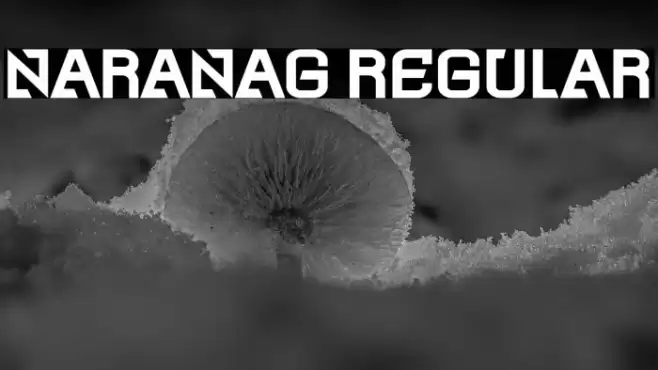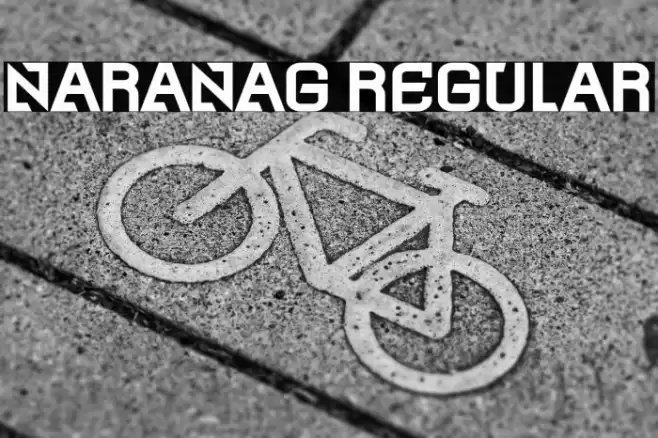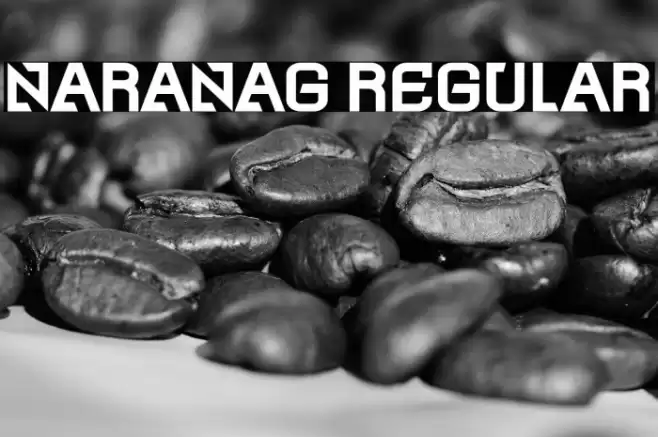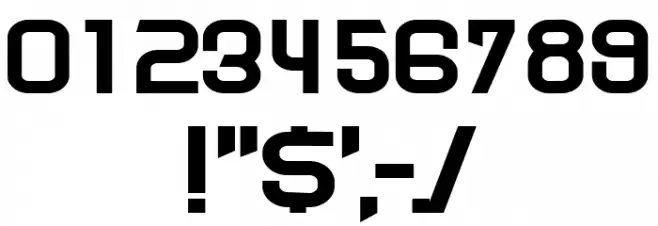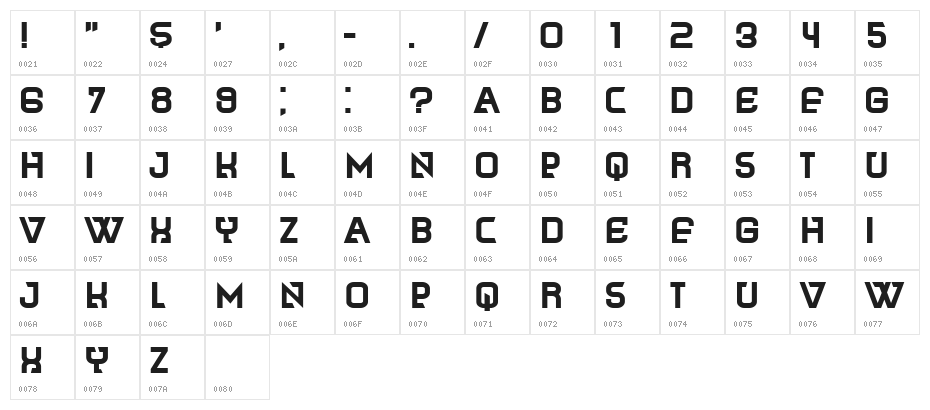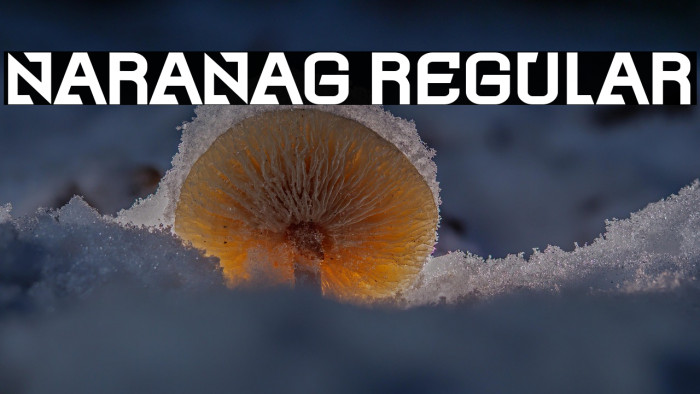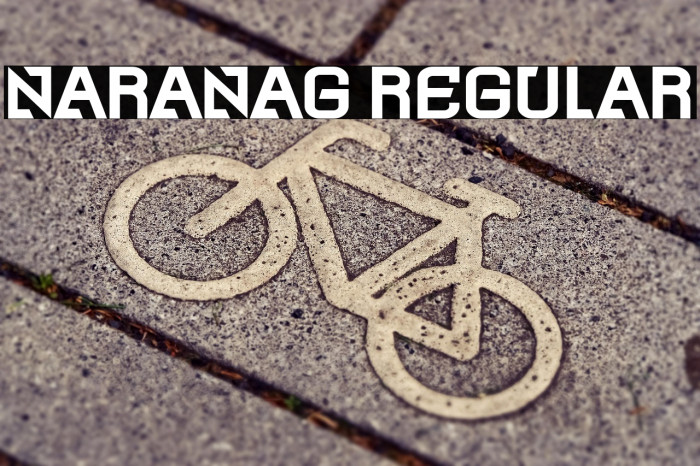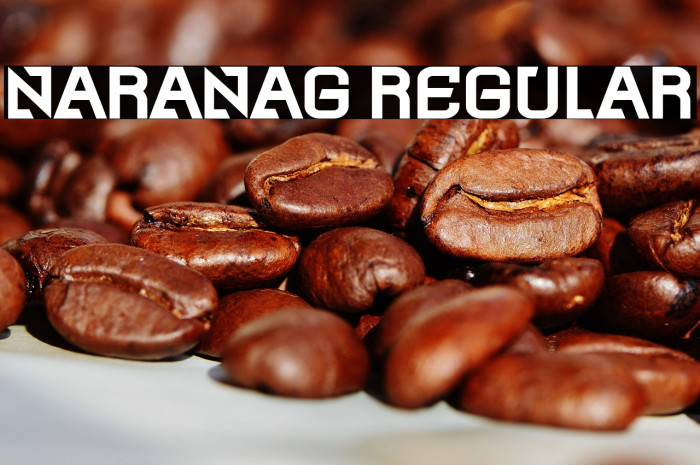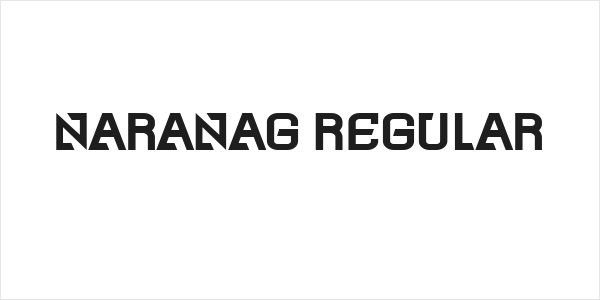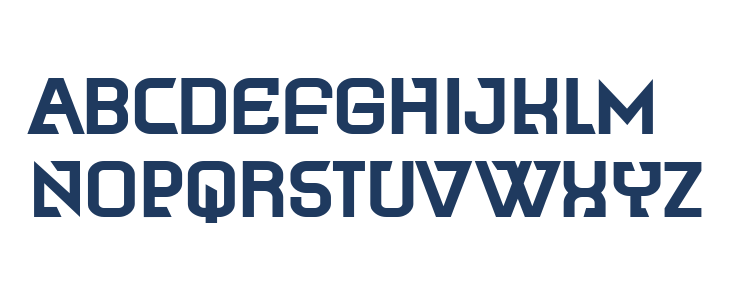
Naranag Regular Font
Naranag Regular Description
This font features a bold, geometric design with sharp angles and a modern aesthetic. The uppercase letters are distinct with a futuristic style, characterized by consistent stroke widths and angular cuts that give it a unique, edgy appearance. The numerals and special characters maintain this geometric theme, ensuring a cohesive look across all characters. The font's strong presence makes it suitable for impactful designs where readability and a contemporary feel are essential.
A bold, geometric font with a modern, angular design from Uncategorized fonts.
- Proposed Projects: Ideal for branding, headlines, posters, and digital interfaces that require a modern and striking appearance.